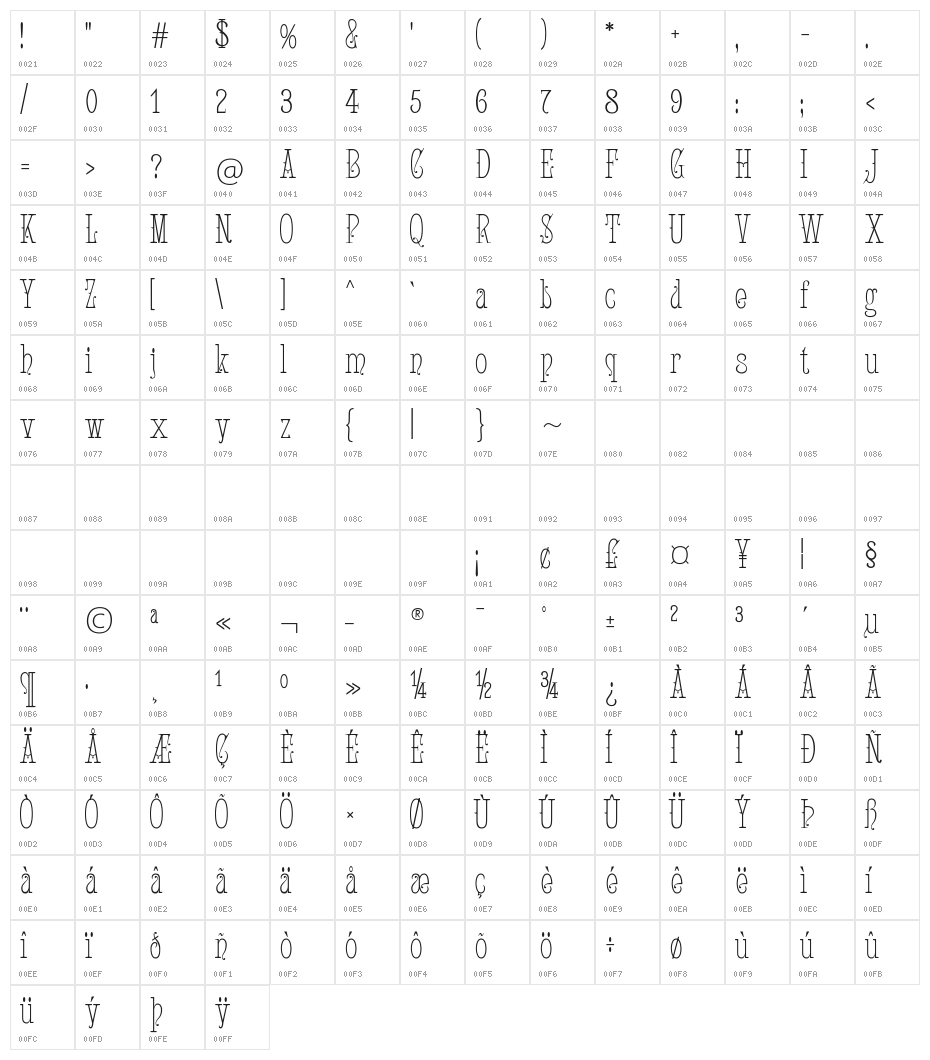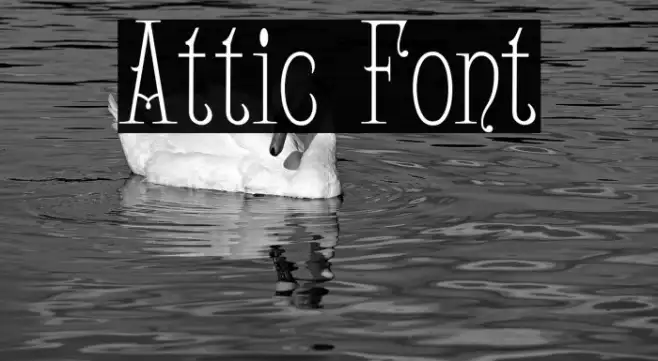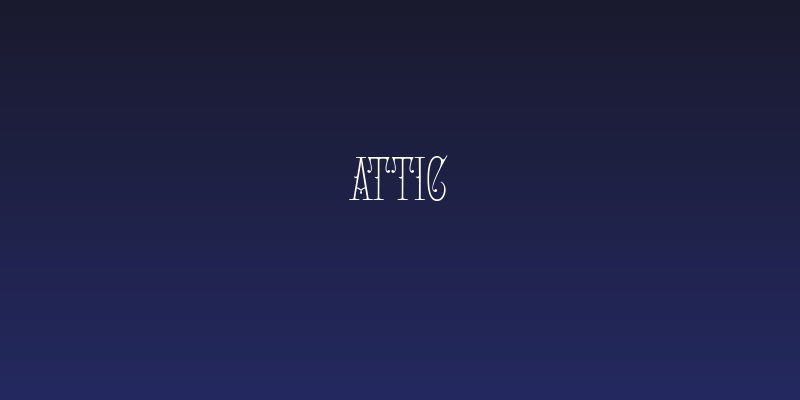
Attic Font
Attic Description
This font features a unique and decorative style with elegant, swirling serifs that add a touch of whimsy and sophistication. The uppercase letters are tall and slender, with intricate curls and loops that give them a distinctive appearance. The lowercase letters maintain a similar style, with a slightly more condensed form that complements the uppercase set. Numbers and special characters follow the same decorative theme, ensuring a cohesive look across all text elements. The font's artistic flair makes it ideal for projects that require a touch of elegance and creativity.
| Proposed Projects | Ideal for wedding invitations, greeting cards, branding, and artistic posters. |